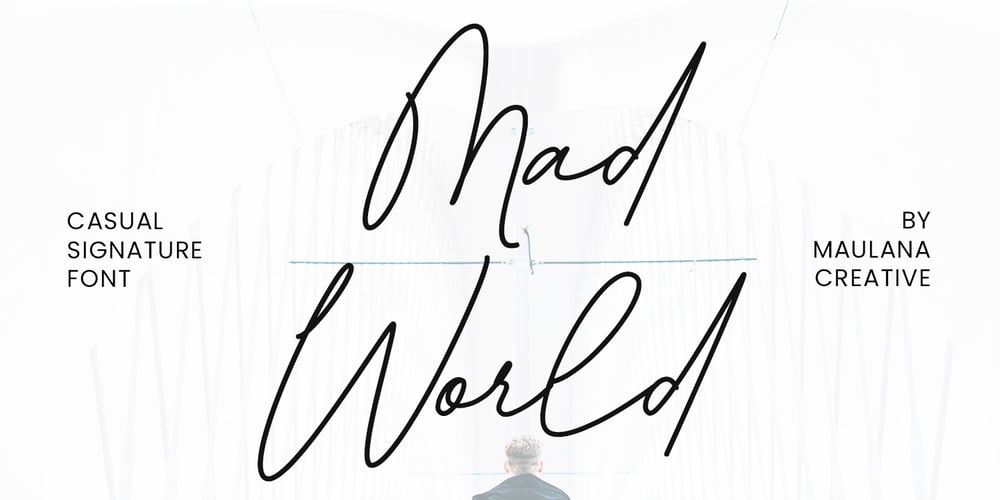
Mad World
Mad World font
Mad World Font Family was designed by Gilang Maulana and published by Maulana Creative. Mad World contains 1 styles and family package options. Give your designs an authentic handcrafted feel. �Mad World Casual Signature Font� is perfectly suited to stationery, logos and much more.Many Thanks!